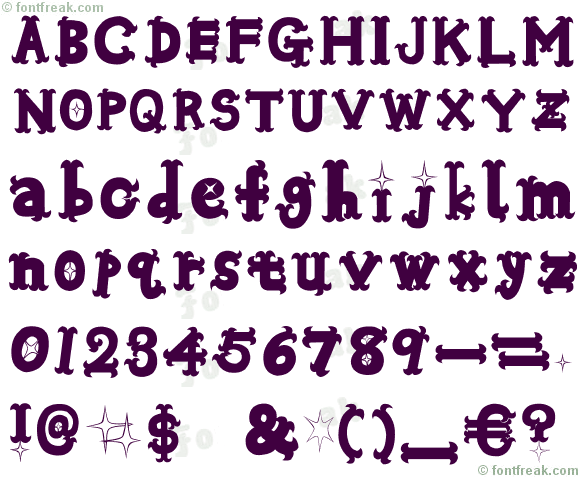
Oshare-Black
About Oshare-Black
Oshare-Black, designed by Baka - Kyakirun, is a captivating decorative font that embodies a unique blend of playful elegance and bold personality. As a display font, it features thick, rounded strokes that command attention, making it an ideal choice for projects requiring a strong visual impact. The contrast between the bold weights and the whimsical, curvy elements adds a delightful character that can elevate any design. The spacing is intentionally generous, allowing each letter to breathe and ensuring readability even at larger sizes.
This font is perfect for a variety of creative applications. It shines in the realm of event invitations, especially for weddings or birthday celebrations, where its fun and engaging style can set a joyful tone. Additionally, Oshare-Black is well-suited for movie posters, where its striking appearance can capture the essence of the film and attract viewers. Restaurant menus can also benefit from this font, giving a lively touch to the establishment's branding and enhancing the dining experience. Furthermore, graphic designers and content creators will find this font invaluable for branding projects, social media graphics, or merchandise designs, where a distinctive look is essential.
What sets Oshare-Black apart is its ability to blend fun with sophistication, making it a versatile choice for a wide range of projects. Its unique style and strong presence ensure that it will make a memorable impression, making the Oshare-Black font free download a must-have for your design toolkit.